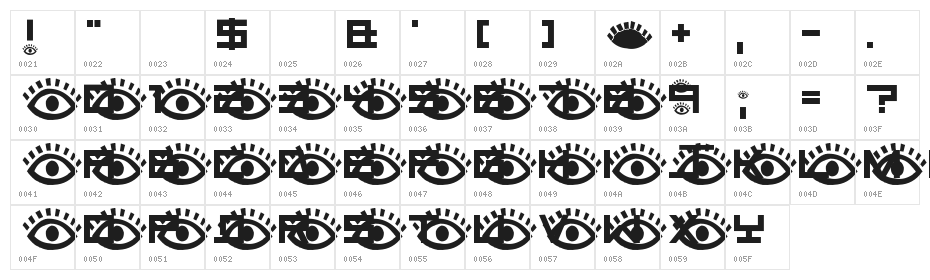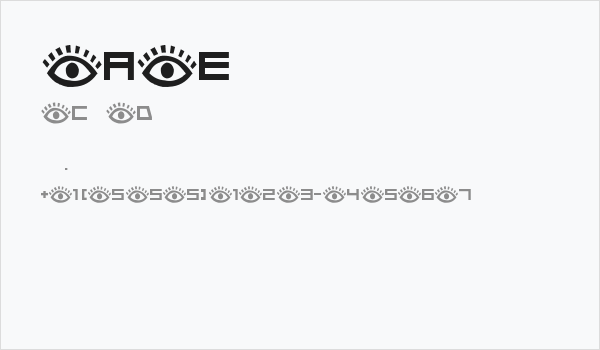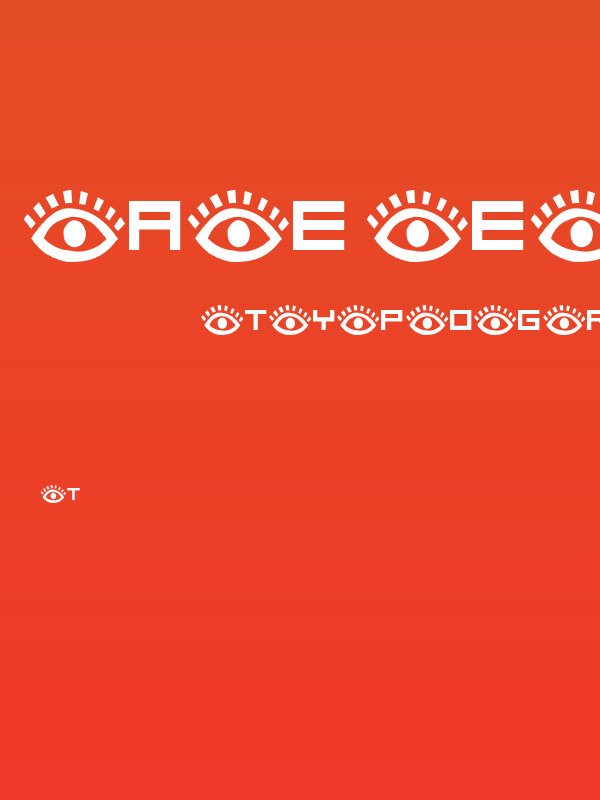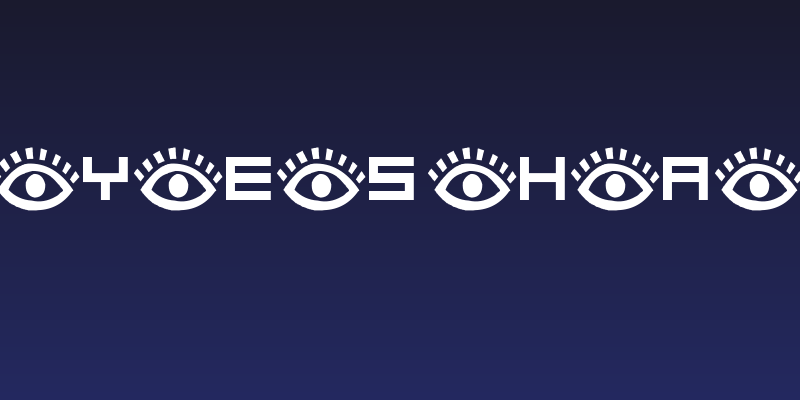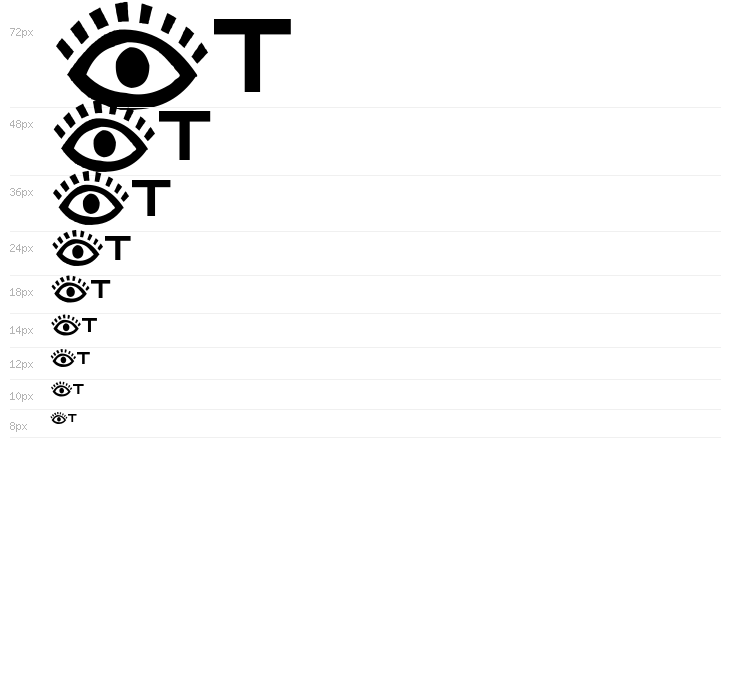
AEZ eyes have it Font
AEZ eyes have it Description
This font features a unique and playful design where each character is integrated with an eye motif, giving it a whimsical and decorative appearance. The letters and numbers are bold and geometric, with the eye element adding a distinctive flair. The special characters continue this theme, incorporating the eye design in creative ways. This font stands out due to its artistic and unconventional style, making it suitable for projects that require a touch of creativity and visual interest.
| Use Case | Logos, Posters, Artistic Branding |
| Proposed Projects | Ideal for creative projects such as posters, album covers, branding for artistic ventures, and any design work that benefits from a unique and eye-catching typeface. |